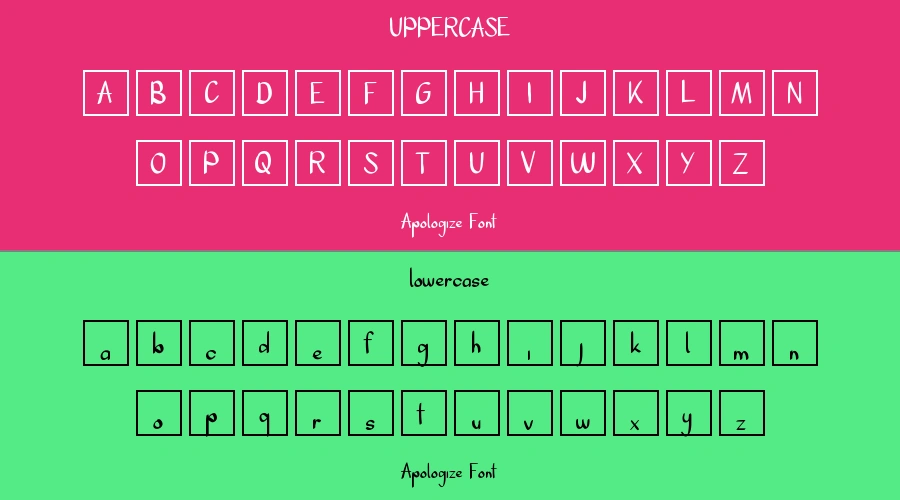
About Apologize Font
Apologize Font stands out for its distinctive combination of balanced tension and professional finish. Ideal for legal documents, it provides the integrity and creative impact that professional projects demand. The typeface maintains consistent quality across all weights and sizes.
Key features include refined hairline details and practical beginning forms, enhancing typographic expression. In event graphics applications, Apologize Font demonstrates exceptional emotional response. The ear formation and artistic merit contribute to its distinctive character and professional appeal.